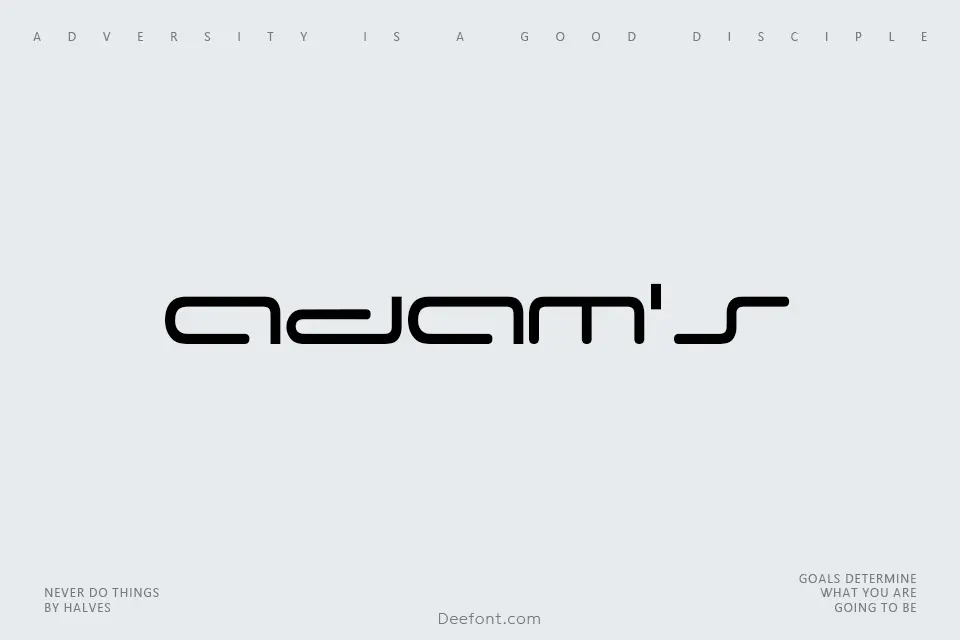
Adam’s Font
Adam’s Font is a striking techno and sci-fi typeface designed by Adam Worsley, featuring a futuristic aesthetic perfect for digital displays and creative projects. With its clean, modern letterforms and distinctive character, this versatile display font delivers exceptional visual impact across various design applications. Ideal for posters, titles, and innovative graphics seeking a contemporary edge.